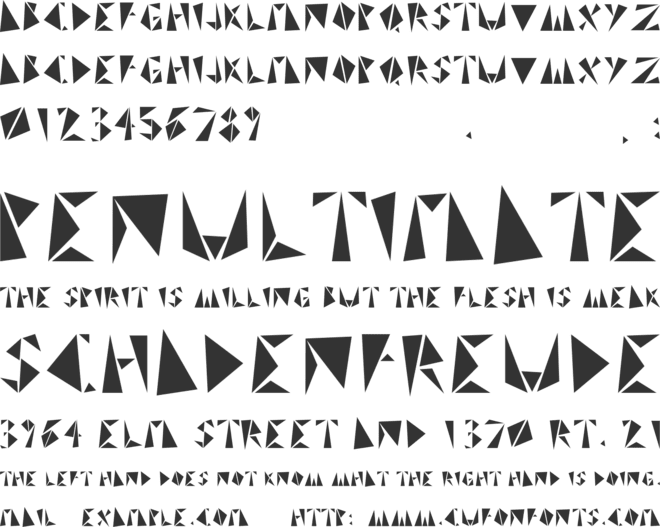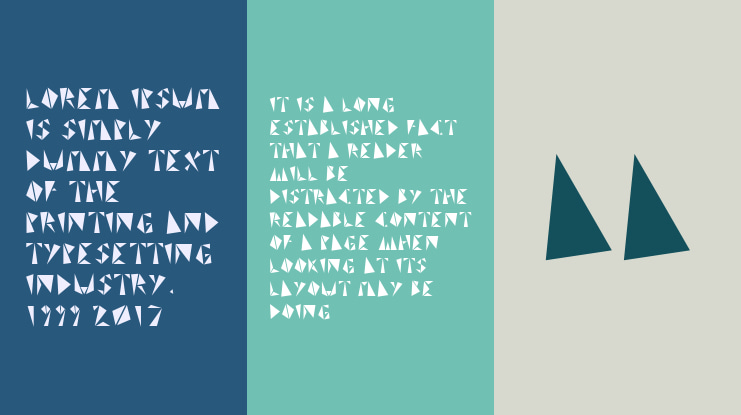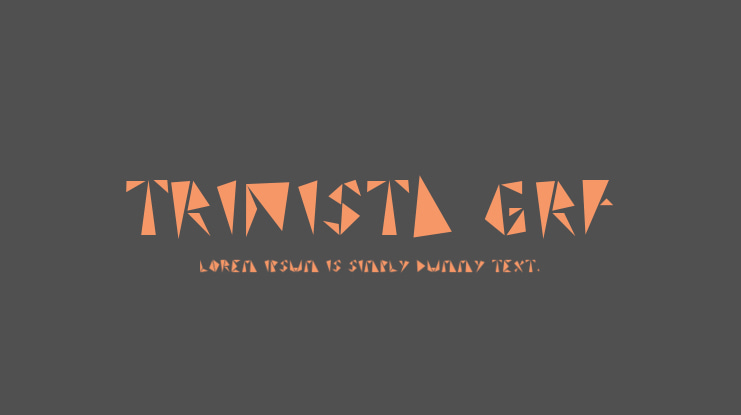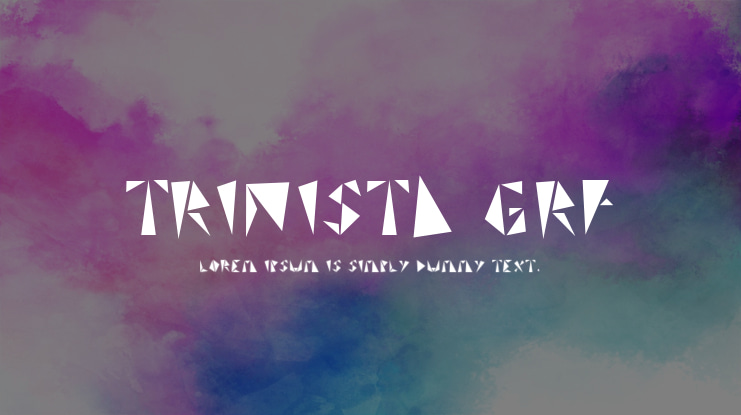
TRINISTA GRF Font
Gavin Fiorina
TRINISTA GRF is a font solely made of triangles! Please enjoy this font for free personal use. If you find it becomes a favorite of yours or you want to use it in a commercial project please donate. Also, I would be thrilled to see anything you make with it! Thank you.